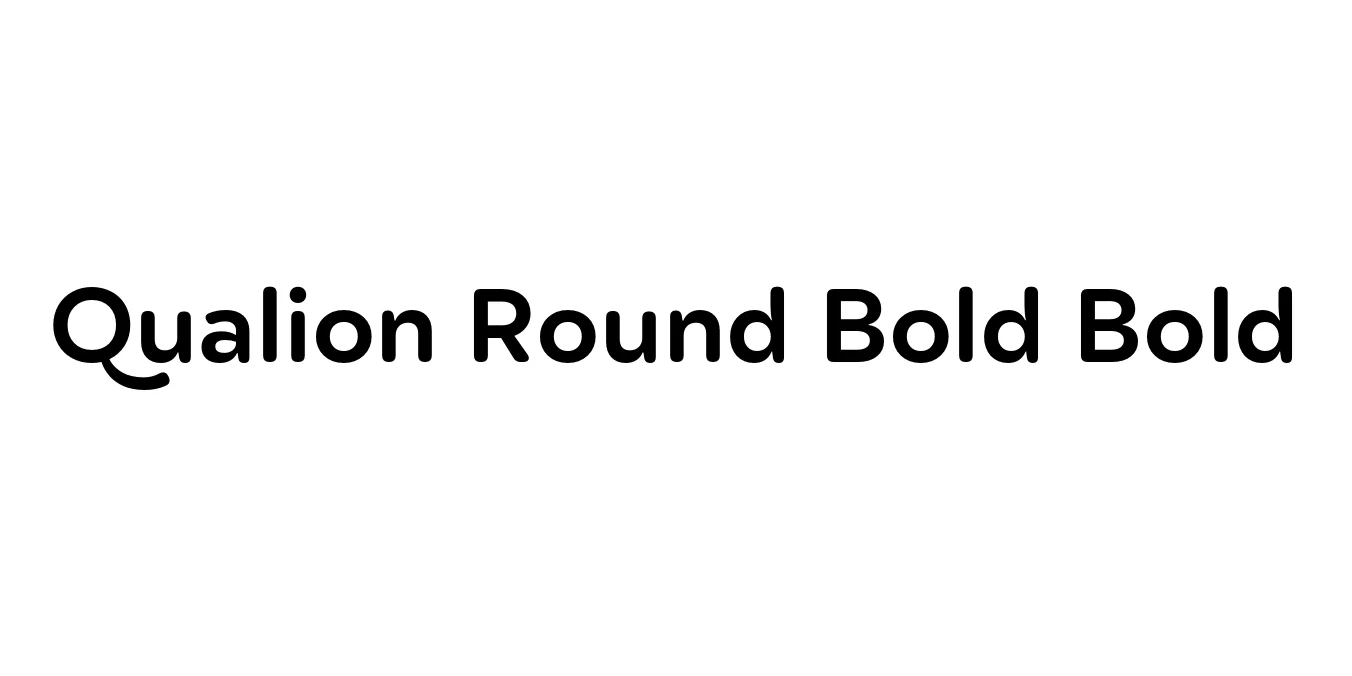
Qualion Round Bold Bold
Designed by Mariusz Bergmanski
| Category | Rounded Sans Serif |
| Designer | Mariusz Bergmanski |
Qualion Round Bold is a sophisticated geometric sans-serif typeface that serves as a softer, more approachable iteration of the original Qualion family. Designed with meticulous attention to balance and geometry, this typeface features smooth, rounded terminals that instill a sense of warmth and friendliness without sacrificing professional structure. It blends the clean lines of modernism with humanist proportions, making it a versatile choice for contemporary design landscapes.
The Bold weight of the Qualion Round series is particularly effective for high-impact communication. It maintains exceptional legibility across various screen resolutions and print surfaces, providing a sturdy yet inviting aesthetic. Its generous x-height and clear apertures ensure that the font remains functional for both display purposes and shorter blocks of text, bridging the gap between technical precision and organic design.
Ideal for companies looking to project an approachable, modern, and reliable image.
Perfect for user interfaces where clarity and a friendly tone are paramount.
High-impact for posters and social media graphics that require a bold yet soft touch.
Excellent for hero sections and titles that need to capture attention instantly.